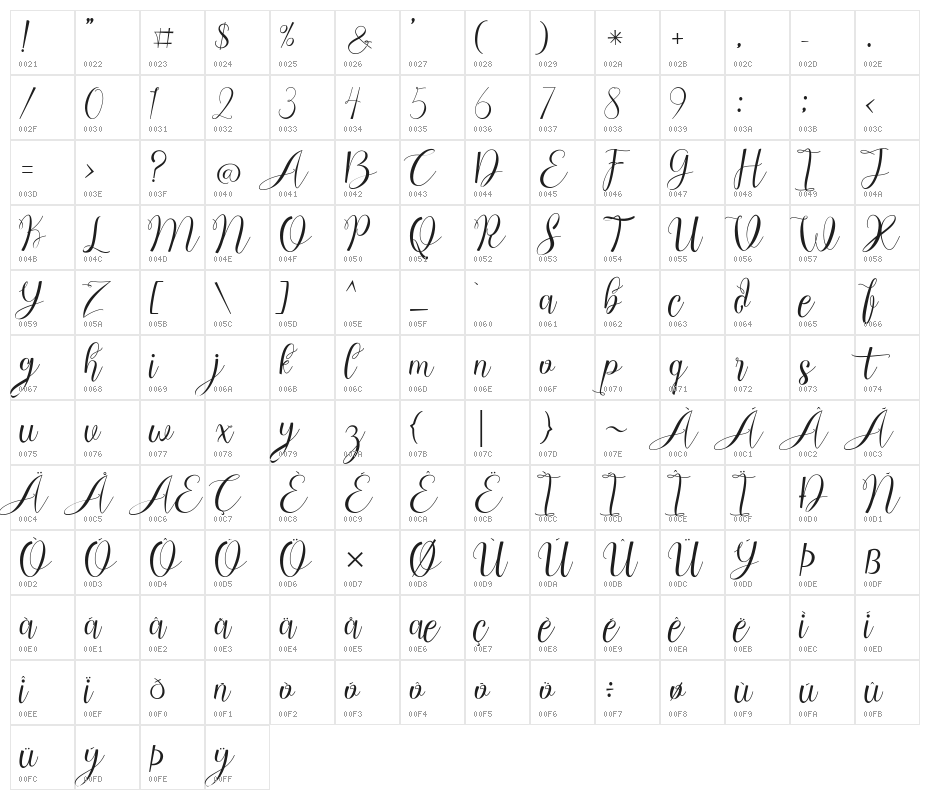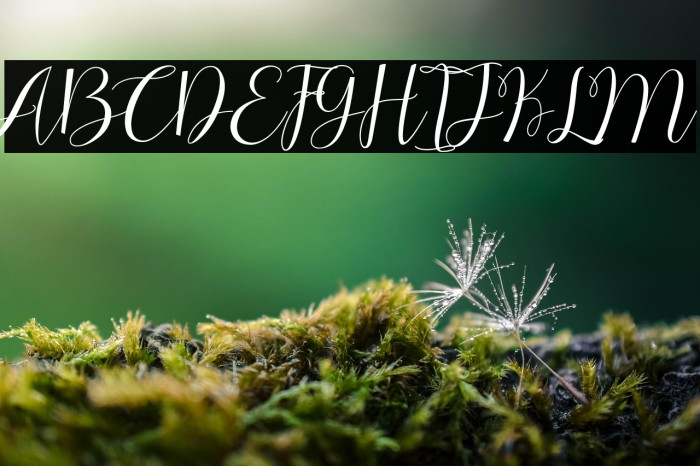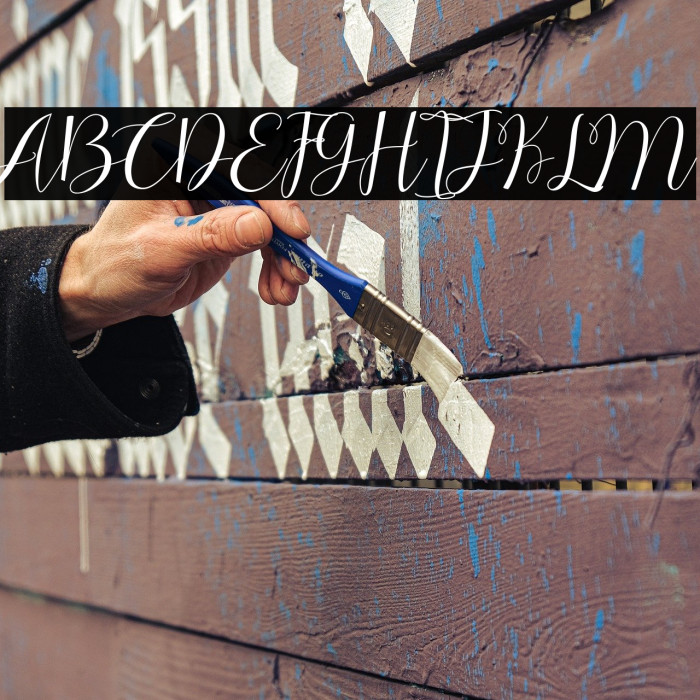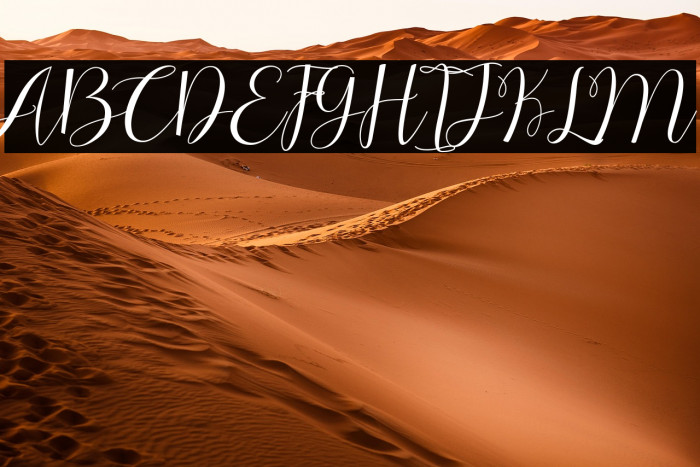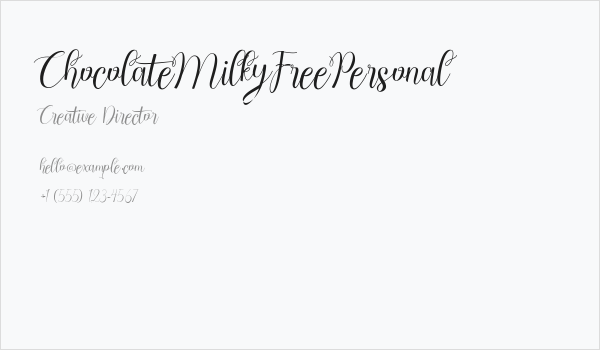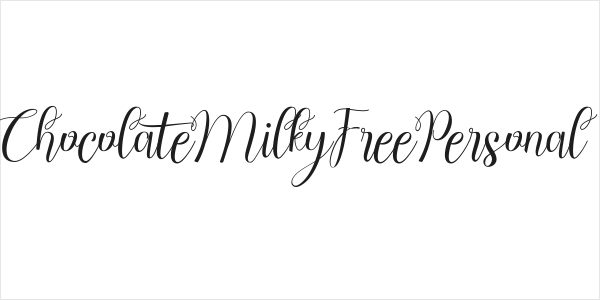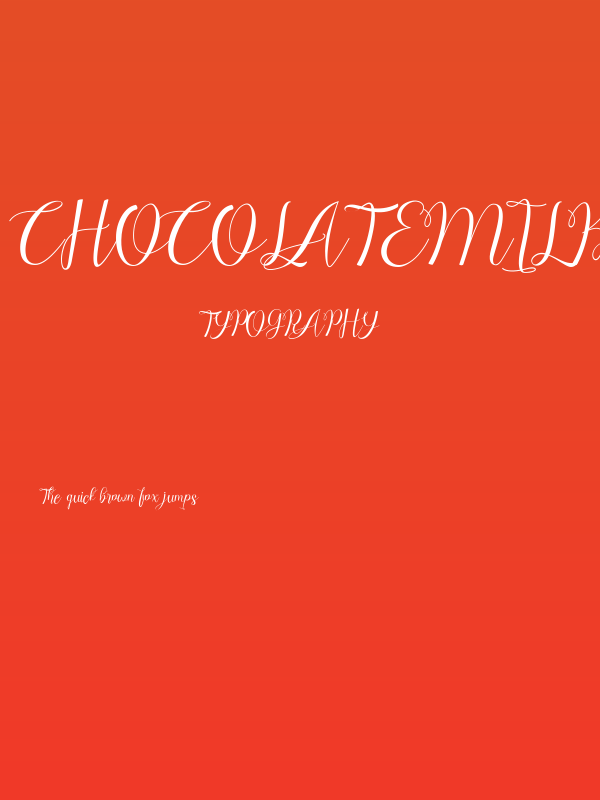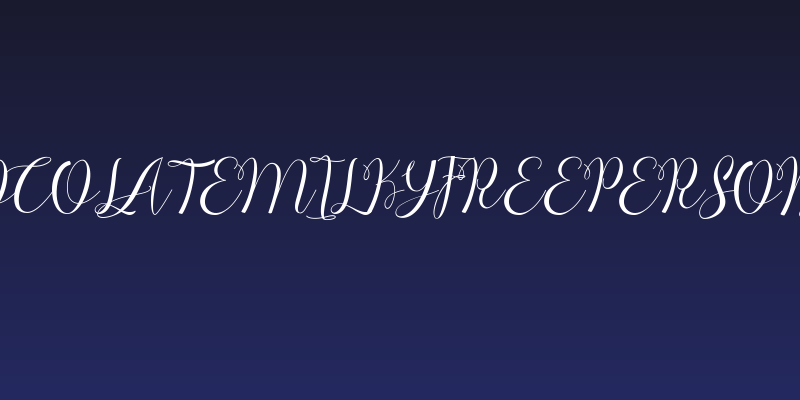
ChocolateMilkyFreePersonal Font
ChocolateMilkyFreePersonal Description
This font features an elegant and flowing script style, characterized by its graceful curves and loops. The uppercase letters are tall and slender, with intricate swirls that add a touch of sophistication. The lowercase letters maintain a consistent flow, enhancing readability while retaining an artistic flair. Numbers and special characters are designed with the same attention to detail, ensuring a cohesive look across all glyphs. The font's overall appearance is both stylish and legible, making it suitable for a variety of creative applications.
| Proposed Projects | Ideal for wedding invitations, greeting cards, branding, and elegant packaging designs. |